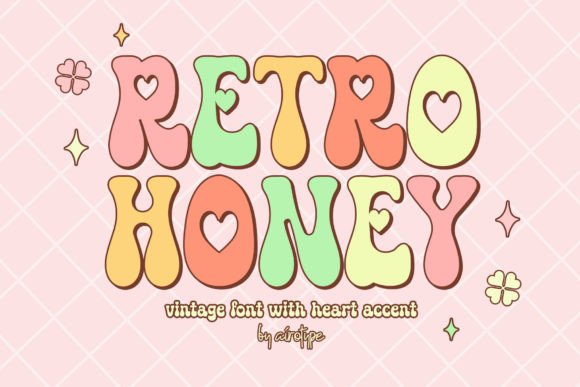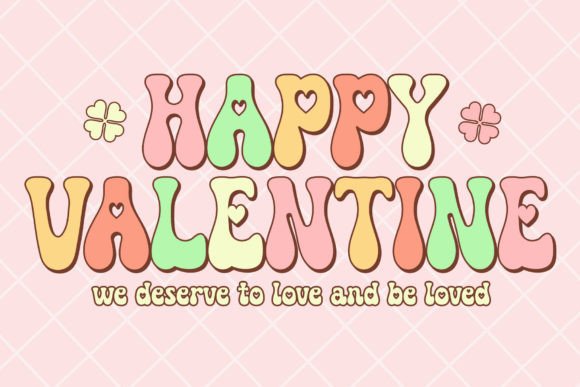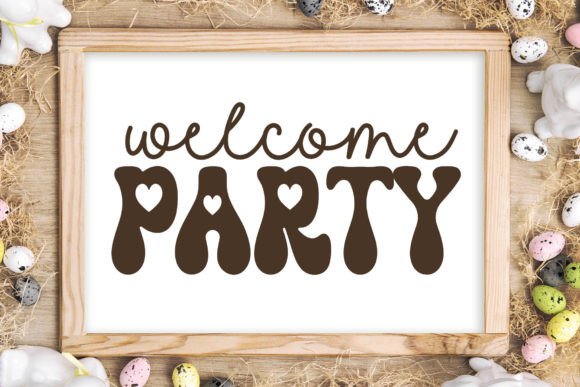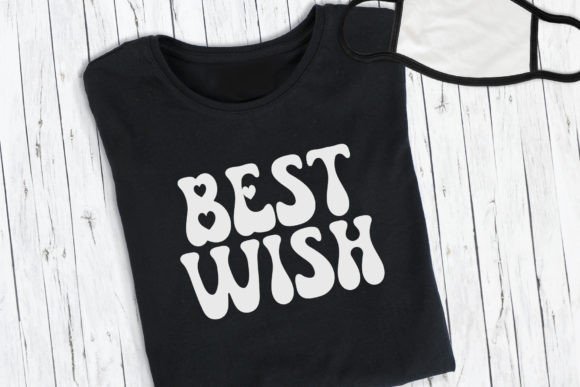
Retro Honey Font: Groovy Vintage Typography for Valentine’s Day!
About the Retro Honey Font
Welcome to the world of Retro Honey Font, a typeface that will inspire your next great project. Retro Honey is a vintage font with a heart accent in its character. This font is pretty, groovy, and playful.
This font is a lovely and cute font that will radiate vintage and love in your design. It can be used for a wide range of designs, such as Valentine’s Day, crafting, stickers, t-shirts, sublimation, and many more.
Retro Honey’s playful vintage style is ideal for headlines, short text blocks on packaging, and eye-catching elements in social media graphics or posters. Its charm works well for branding projects focused on artisanal products, boutiques, or events with a retro aesthetic. However, its decorative nature makes it unsuitable for body text or UI elements requiring high readability.
Consider pairing Retro Honey with a clean sans-serif like Montserrat for a balanced contrast, or a classic serif like Playfair Display for a more vintage-inspired look. A simple geometric sans-serif could also provide a modern counterpoint.
The font’s overall personality is cheerful and nostalgic, conveying a sense of warmth and friendly approachability. Avoid using it in contexts requiring seriousness or sophistication.
Retro Honey Font Usage Examples
Retro Honey Font Example